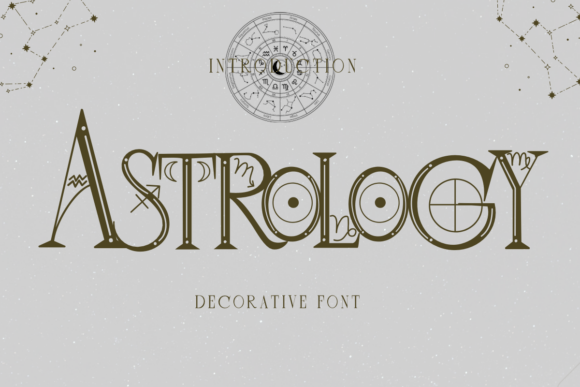
The Magical World of Astrology Font: A Designer’s Best Friend
I’ll never forget the time I was working on a project for a client who wanted a custom greeting card with a celestial theme. I had spent hours browsing through font libraries, but nothing seemed quite right. That’s when I stumbled upon the Astrology Font. It was like a breath of fresh air – the perfect blend of whimsy and elegance. In this article, I’ll share my experience with this beautiful font, its features, and how to make the most of it in your designs.
An Honest Review of Astrology Font
• ✨ Unique and decorative, perfect for creative projects
• ✅ Highly versatile, suitable for various design applications
• 💫 Beautifully crafted, with intricate details and flourishes
• 👍 Easy to read, despite its decorative nature
While Astrology Font is an excellent choice for many projects, there are a few things to keep in mind:
• 🤔 May not be suitable for body text or long-form content, as it can be a bit ornate
The Backstory of Astrology Font
While the origins of Astrology Font are shrouded in mystery, it’s believed to have been designed by a team of creatives who wanted to capture the essence of the celestial world. Inspired by ancient astrological symbols and typography, they crafted a font that’s both beautiful and functional.
What is Astrology Font best used for? Astrology Font is perfect for creative projects, such as greeting cards, invitations, and social media posts. It’s also great for designs that require a touch of whimsy and elegance.
Is Astrology Font suitable for body text? While Astrology Font is easy to read, it’s not recommended for body text or long-form content. It’s best used for headlines, titles, or short paragraphs.